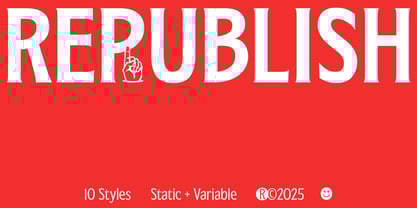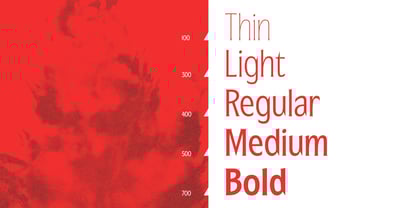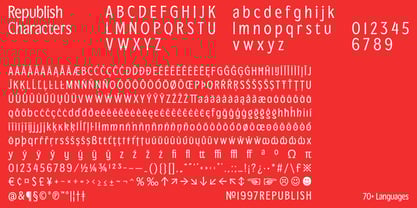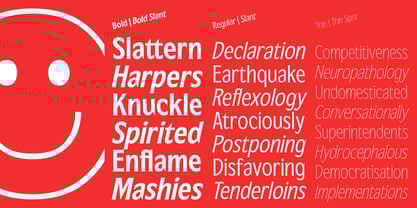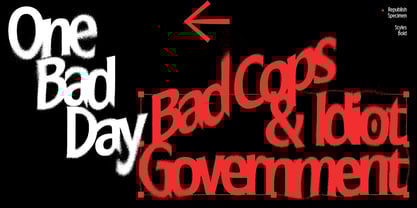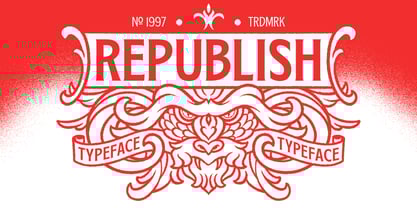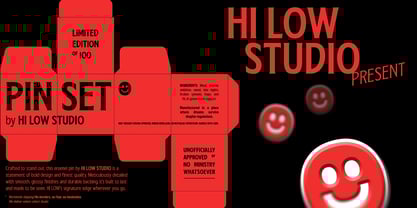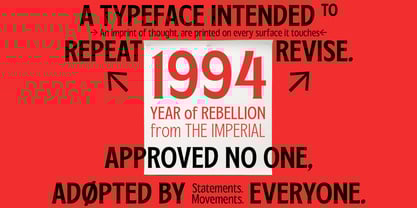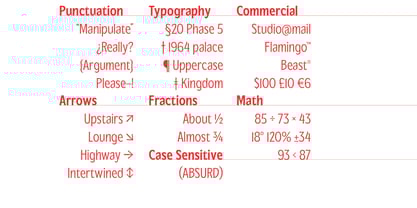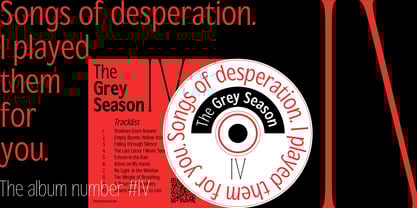
Republish
by Abdalaka
Republish is a flared serif typeface inspired by bold lines and sharp edges. It reflects values of courage, fearlessness, and honesty, making it a statement font for those who want their words to carry weight.
Designed in 10 styles featuring regular and slanted versions, variable font option, and also possible for up to 70 languages, Republish offers flexibility without losing its striking presence. Its versatility makes it suitable for headlines to refined editorial layouts, branding, posters, packaging, and digital design.